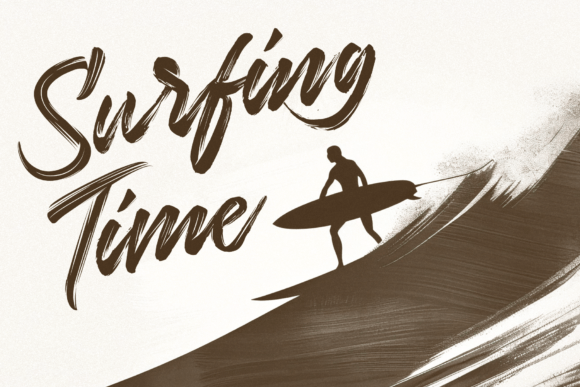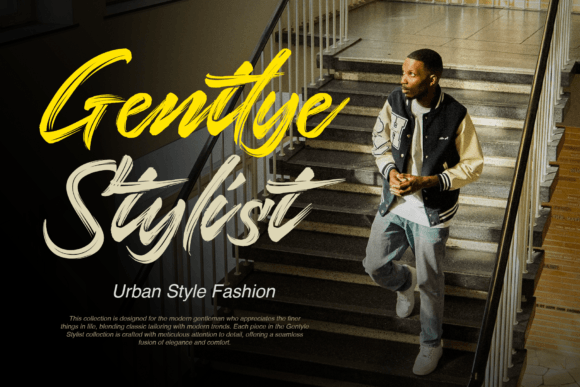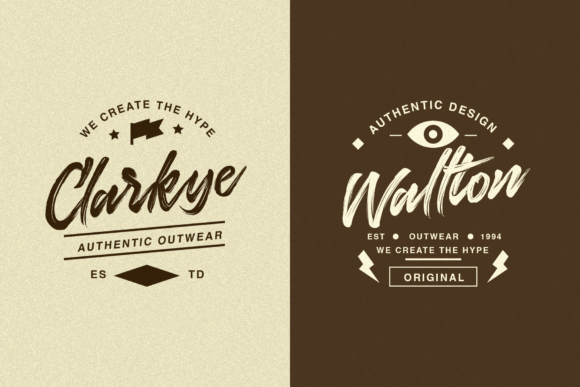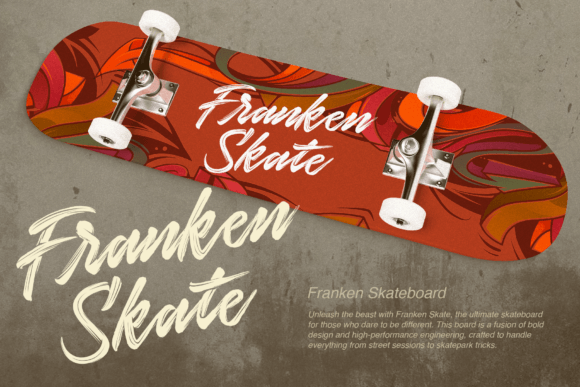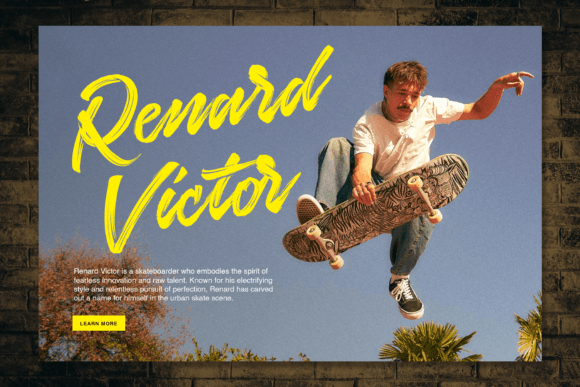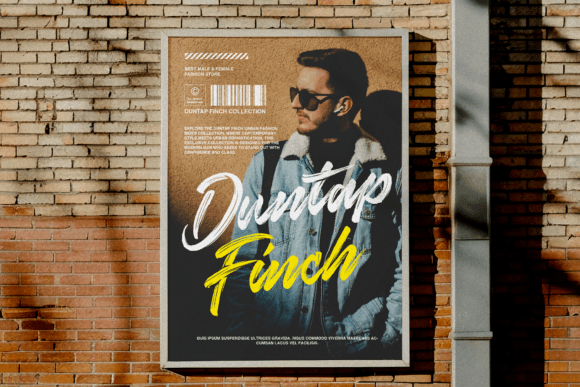
Introduction to Deviantly Brush Font
Have you ever been stuck in a design rut, desperate for a font that captures the essence of your creative vision? You know, that moment when the words just won’t flow and your ideas feel stifled? For many designers, this is a familiar feeling – until they stumble upon the perfect font to spark their imagination.
Enter Deviantly Brush Font, a high-quality, artisan brush and expressive handwritten script that embodies the raw energy of rebellious creativity. This design resource is more than just a font – it’s a statement piece that adds attitude and personality to any project.
Whether you’re working on a free download or a paid project, Deviantly Brush Font is the perfect tool to elevate your creative project and make a bold impression. With its transparent background and spontaneous flow, this font is ideal for everything from edgy branding to eye-catching posters.
Key Features of Deviantly Brush Font
- High-quality design resource ideal for creative projects, offering a unique brush font style.
- Unique characteristics include hand-painted textures and subtle imperfections, adding an organic feel to any creative project.
- Perfect for designers seeking a high-quality, free design resource that can add a touch of personality to their work.
- Can be used in a variety of design applications, including logos, branding, and typography-based projects.
Honest Review: Deviantly Brush Font
I recently came across the Deviantly Brush Font, and I must say it’s a great addition to any designer’s toolkit. This free download is a high-quality design resource that’s perfect for creative projects.
- ✨ Unique, hand-drawn design that adds a personal touch to any project
- ✨ Great for creating eye-catching headings, titles, and other text elements
- ⚠️ Limited character set, which may not be suitable for longer blocks of text
- ⚠️ May not be as versatile as other fonts in certain design situations
Overall, I’m impressed with the Deviantly Brush Font. It’s a great choice for designers looking for a unique, high-quality font to add some personality to their creative project. While it may have some limitations, it’s definitely worth checking out.
Deviantly Brush Font is perfect for a variety of creative projects, including illustrations, graphics, presentations, and documents. It’s also great for designers who need a high-quality design resource for their projects.
Comparison: While Deviantly Brush Font has a more playful and bold feel, the Hand Drawn Script Font is more refined and suitable for formal designs.